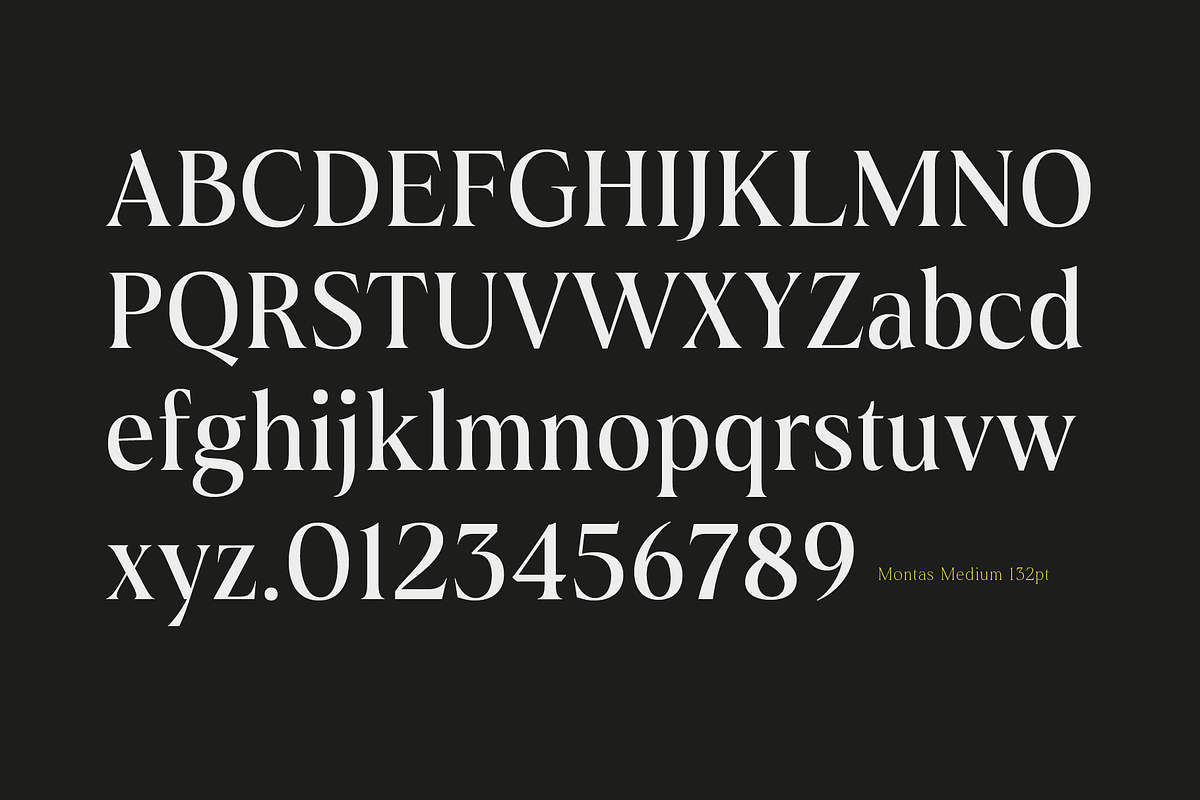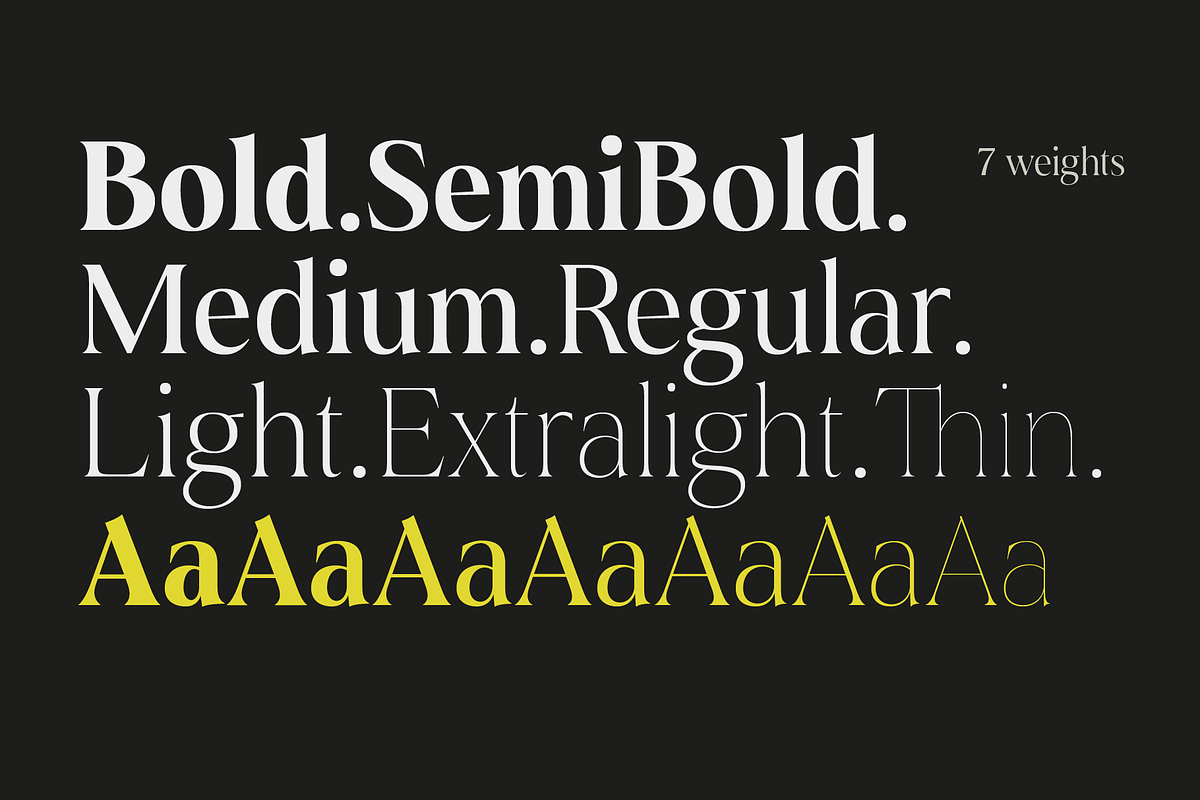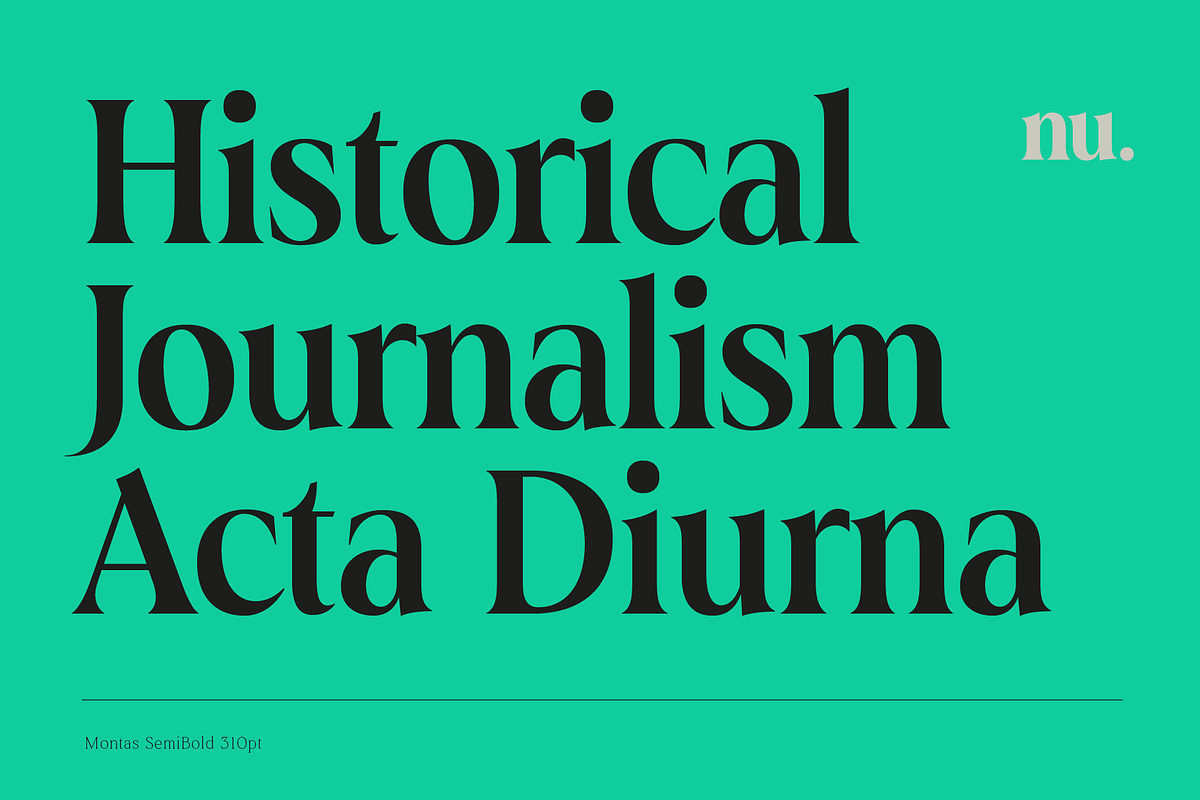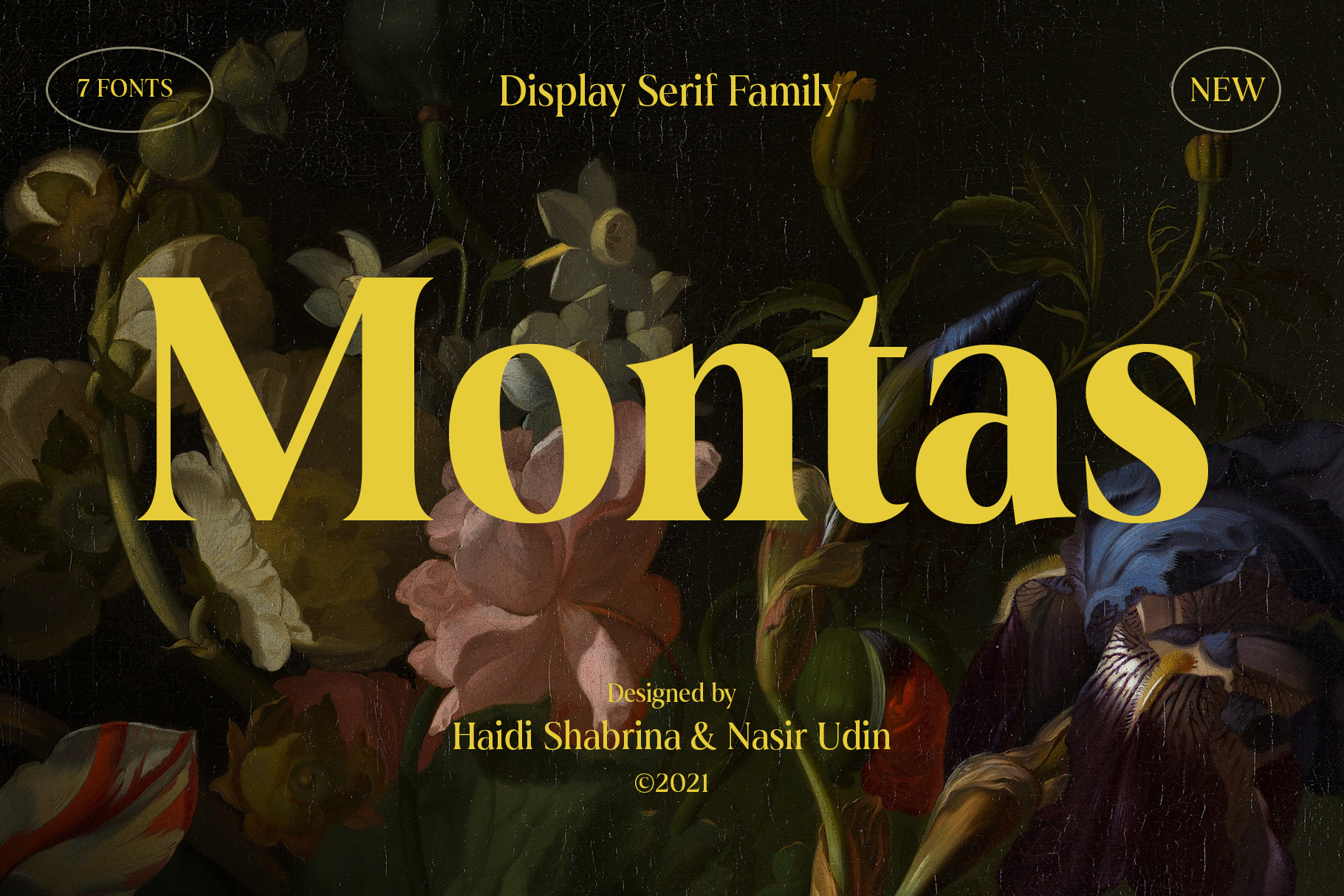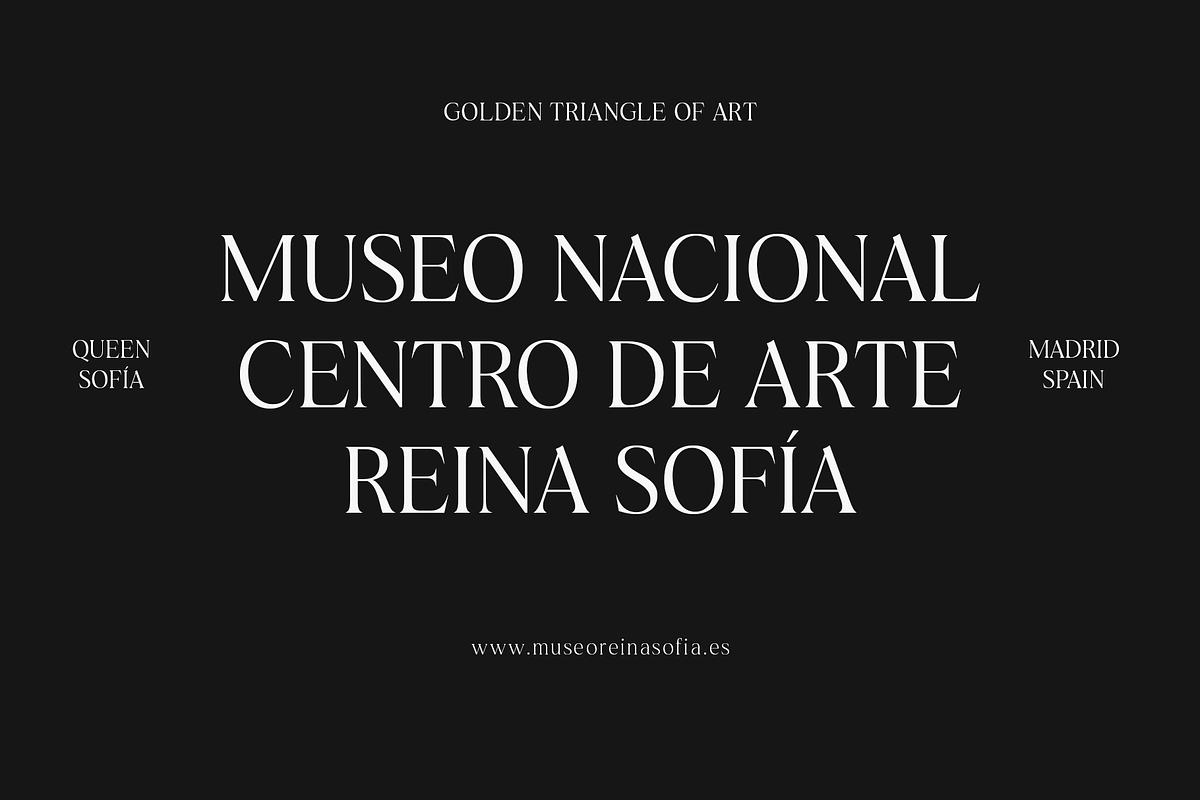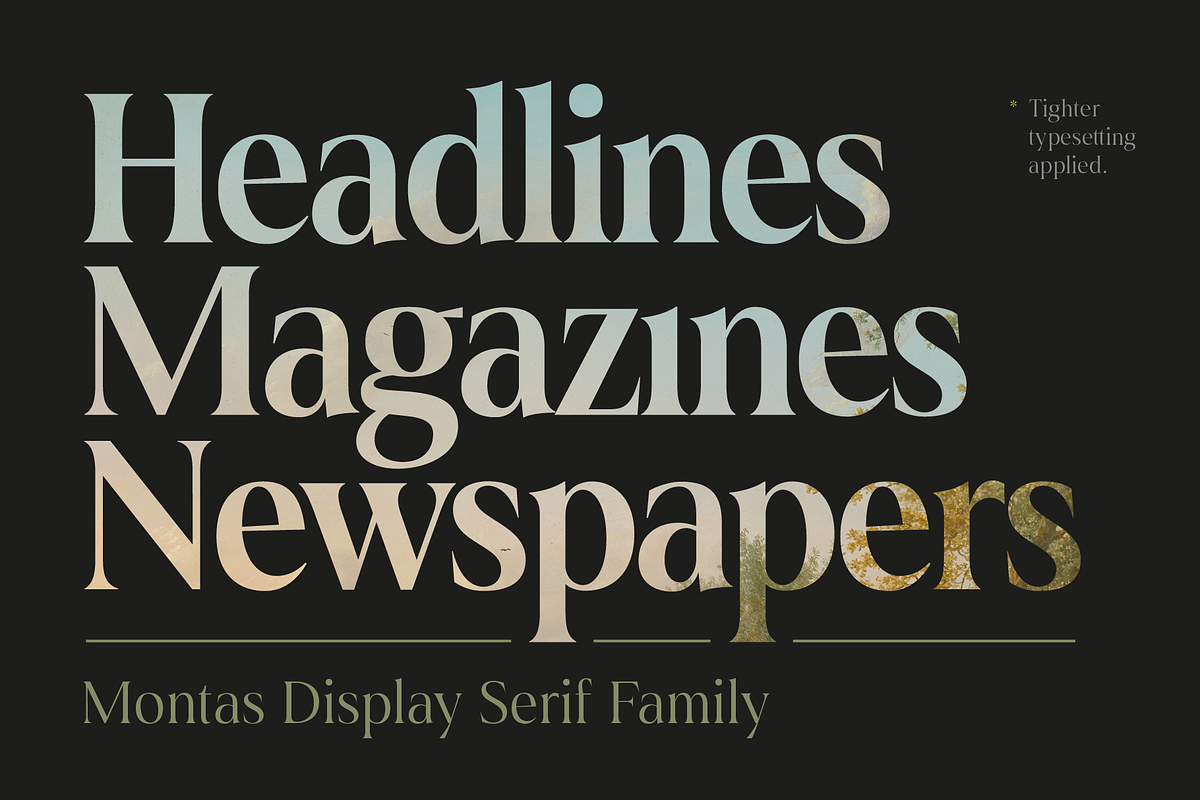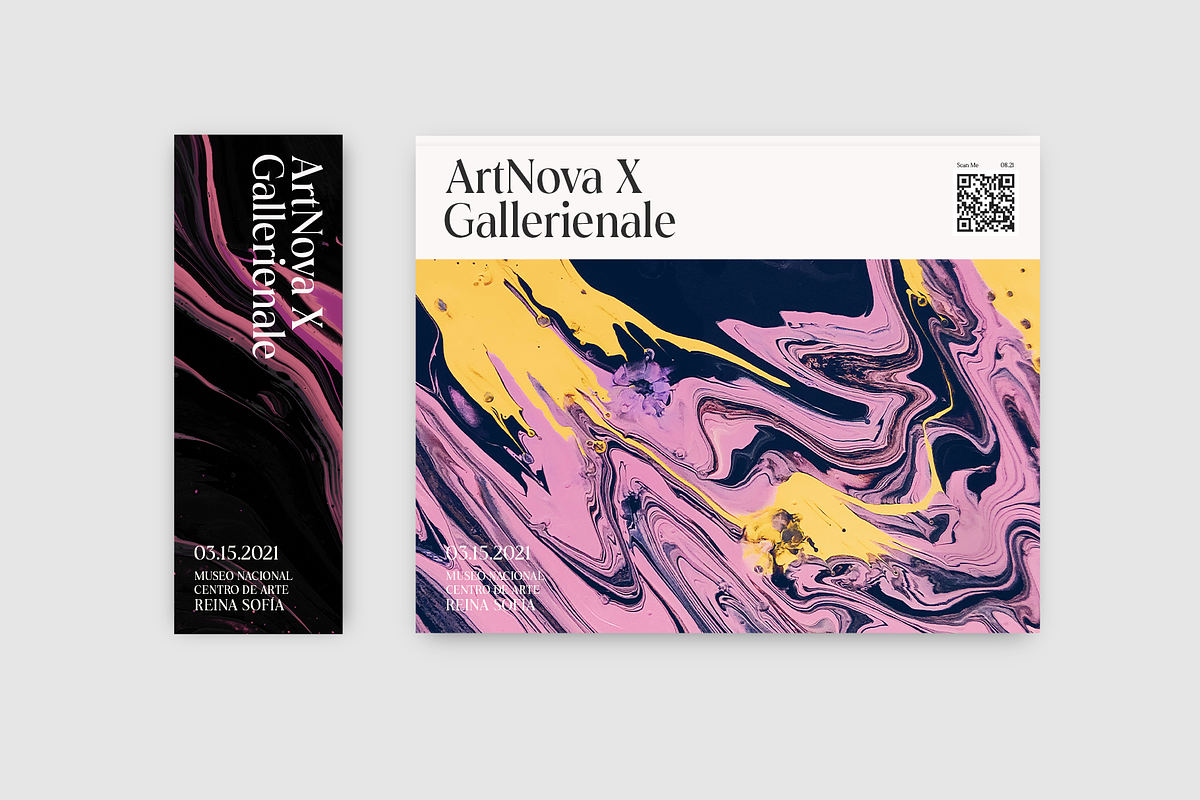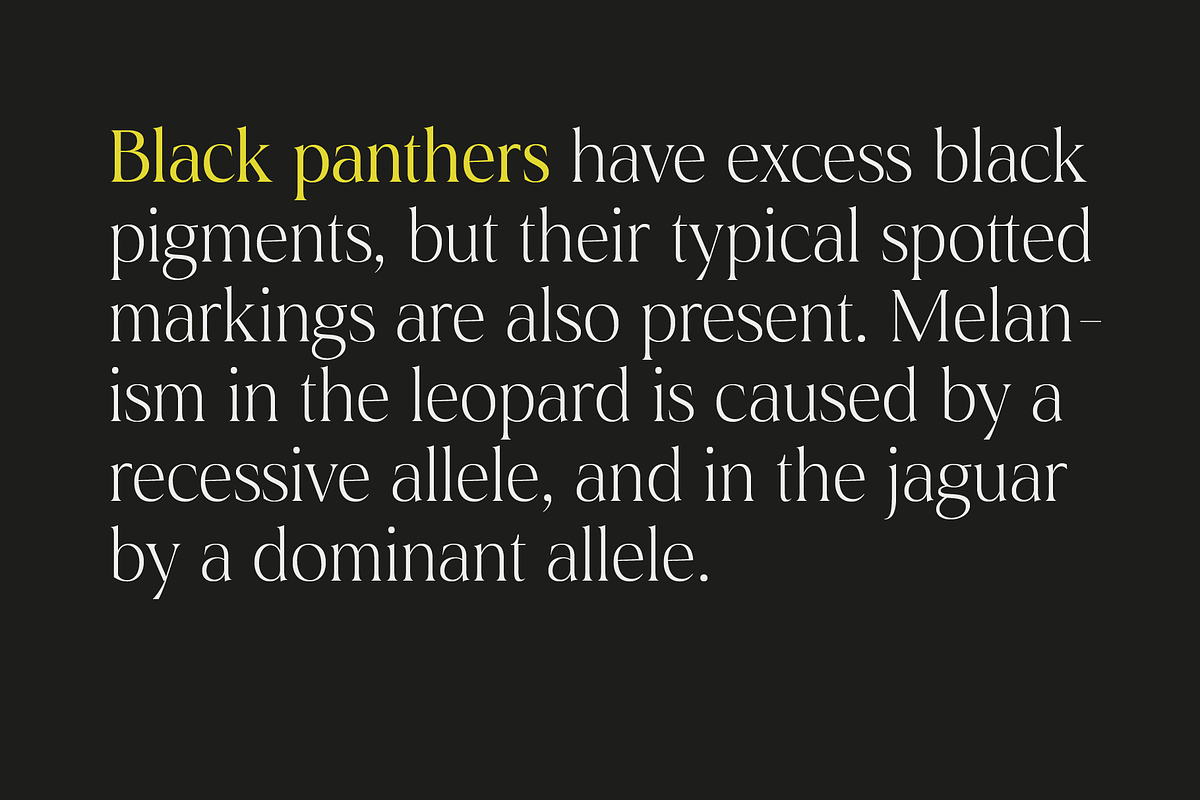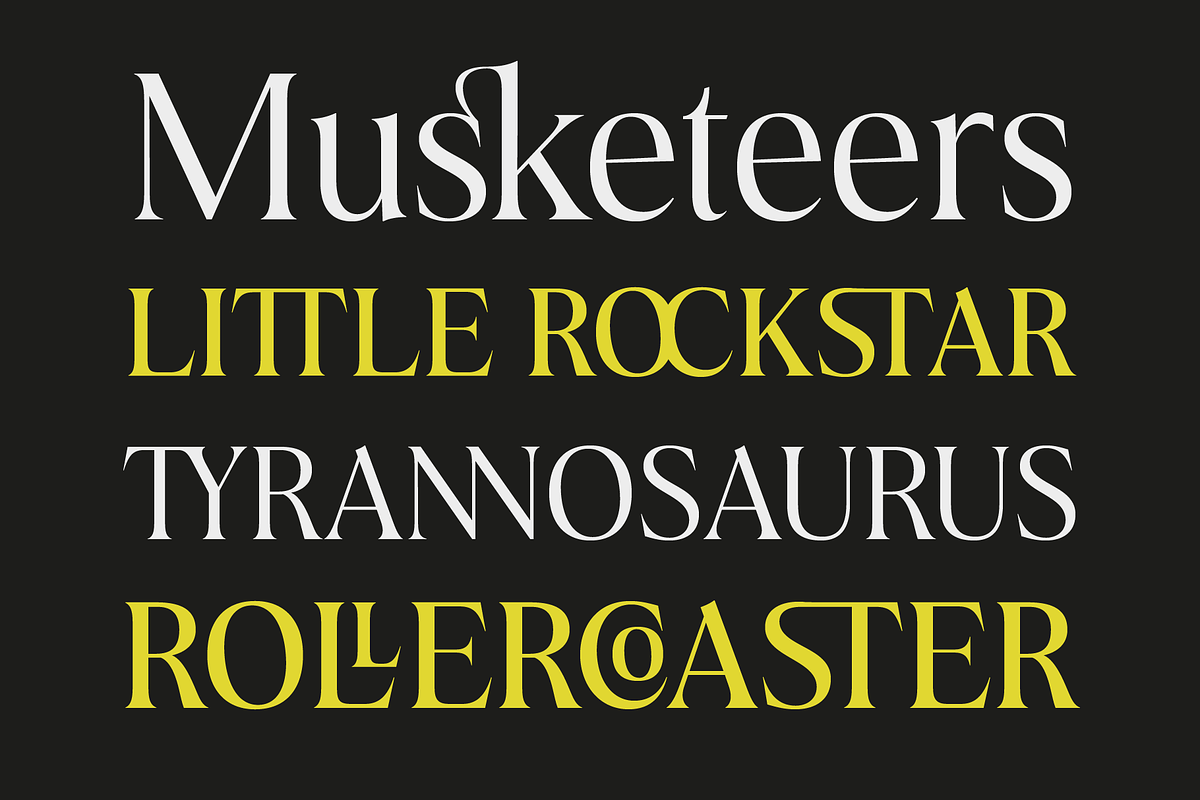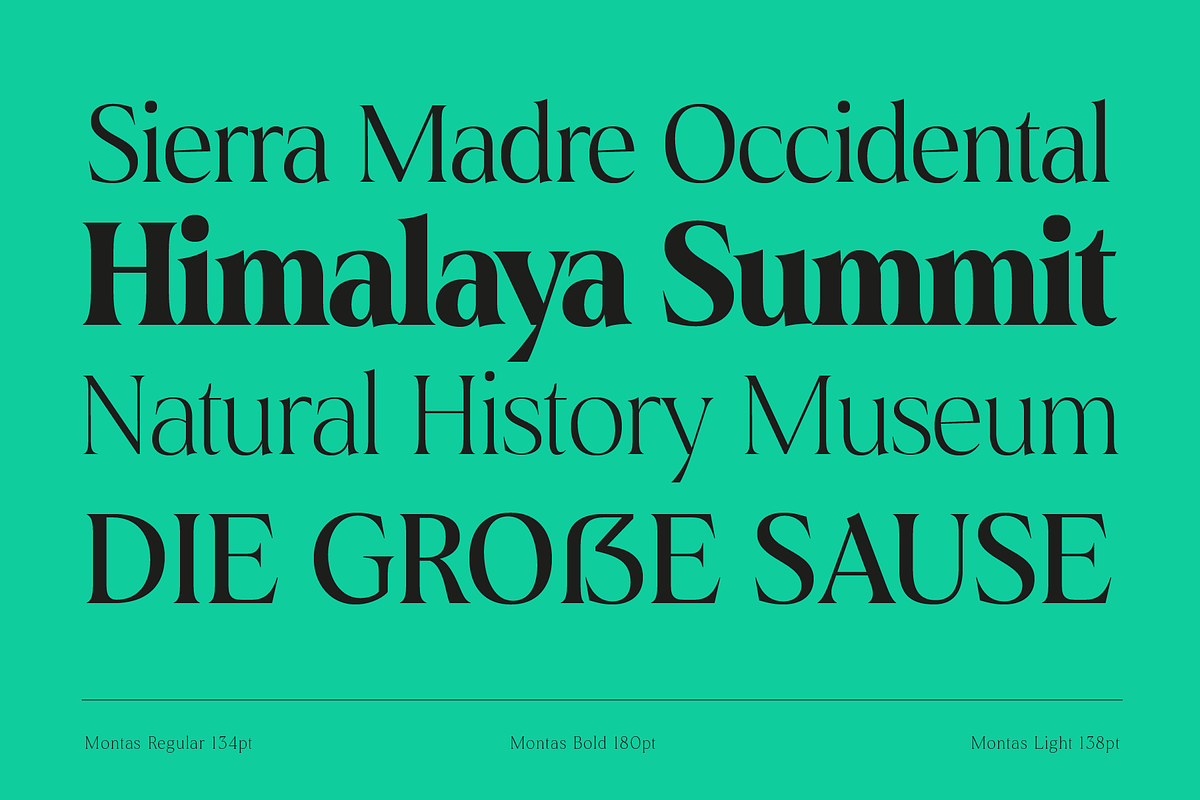
Montas - 7 Fonts
Montas is an elegant display serif with high contrast. Designed to be fit on a vintage-themed design project or the modern one. Its bolder weights are suitable for a striking headline, while the lighter weights are suitable for a short paragraph as well.
OpenType Features: Case-Sensitive Forms, Contextual Alternate, Discretionary Ligatures, Denominator, Fractions, Historical Forms, Kerning, Standard Ligatures, Localized Forms, Numerator, Ordinals, Scientific Inferior, Stylistic Set, Subscript, Superscript